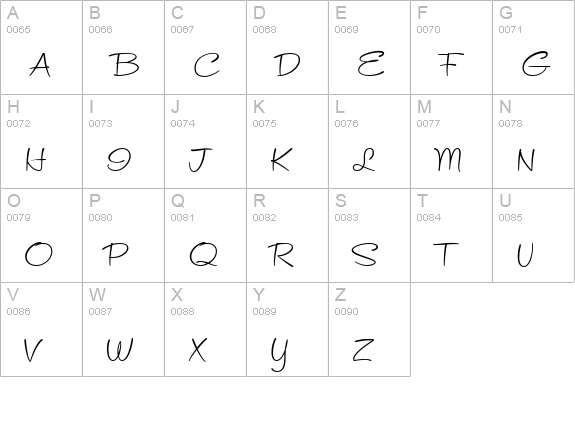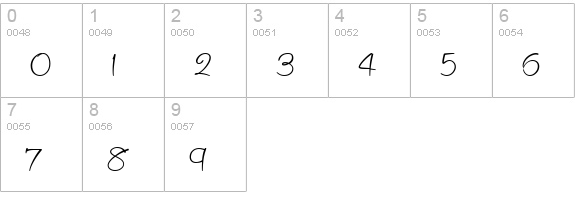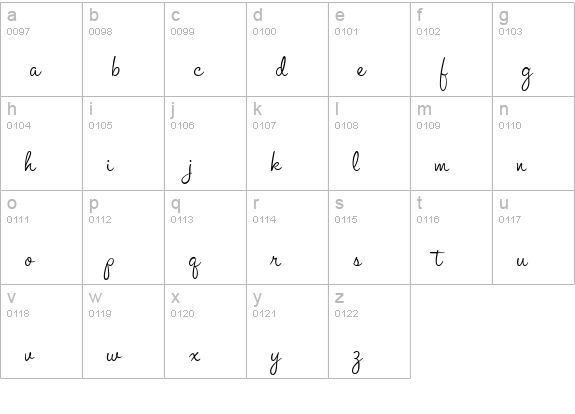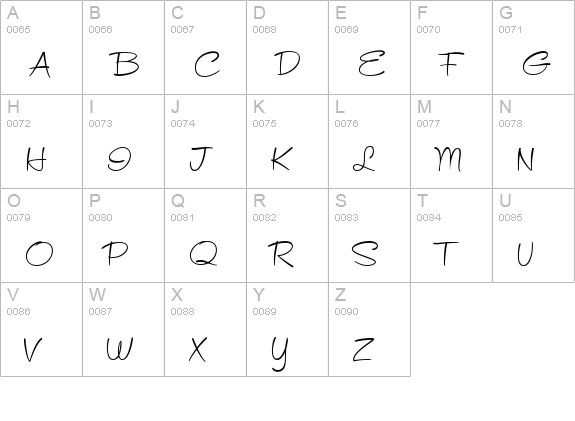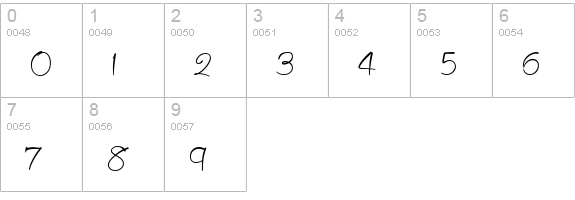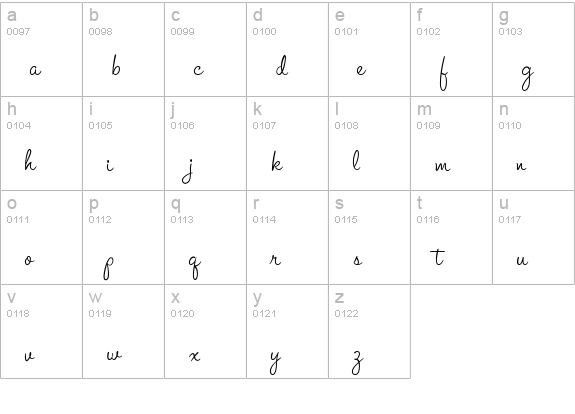
Refreshment Stand Font Details
Refreshment Stand font is a delightful and playful typeface that will bring a touch of whimsy to your designs. With its casual and friendly letterforms, this font is perfect for adding a lighthearted and fun element to any project. The Refreshment Stand font is versatile and can be used for a variety of purposes, including branding, packaging, posters, invitations, and more. Its unique and charming style will instantly grab attention and make your designs stand out from the crowd. One of the best things about the Refreshment Stand font is that it is freely available to download at FontsMarket.com. You can easily access this font and use it in your personal and commercial projects without any restrictions. Whether you're a professional designer or just starting out, this font is a valuable addition to your font library. The Refreshment Stand font features a wide range of characters, including uppercase letters, lowercase letters, numbers, punctuation marks, and special symbols. Its clean and legible design ensures that your text will be easy to read, even at smaller sizes. When using the Refreshment Stand font, you have the freedom to experiment and explore different typographic layouts. Its playful nature allows for creative combinations and unique compositions that will make your designs truly one-of-a-kind. So, why wait? Download the Refreshment Stand font today from FontsMarket.com and let your creativity flow. With its free availability and delightful design, this font is sure to become a go-to choice for all your design needs.